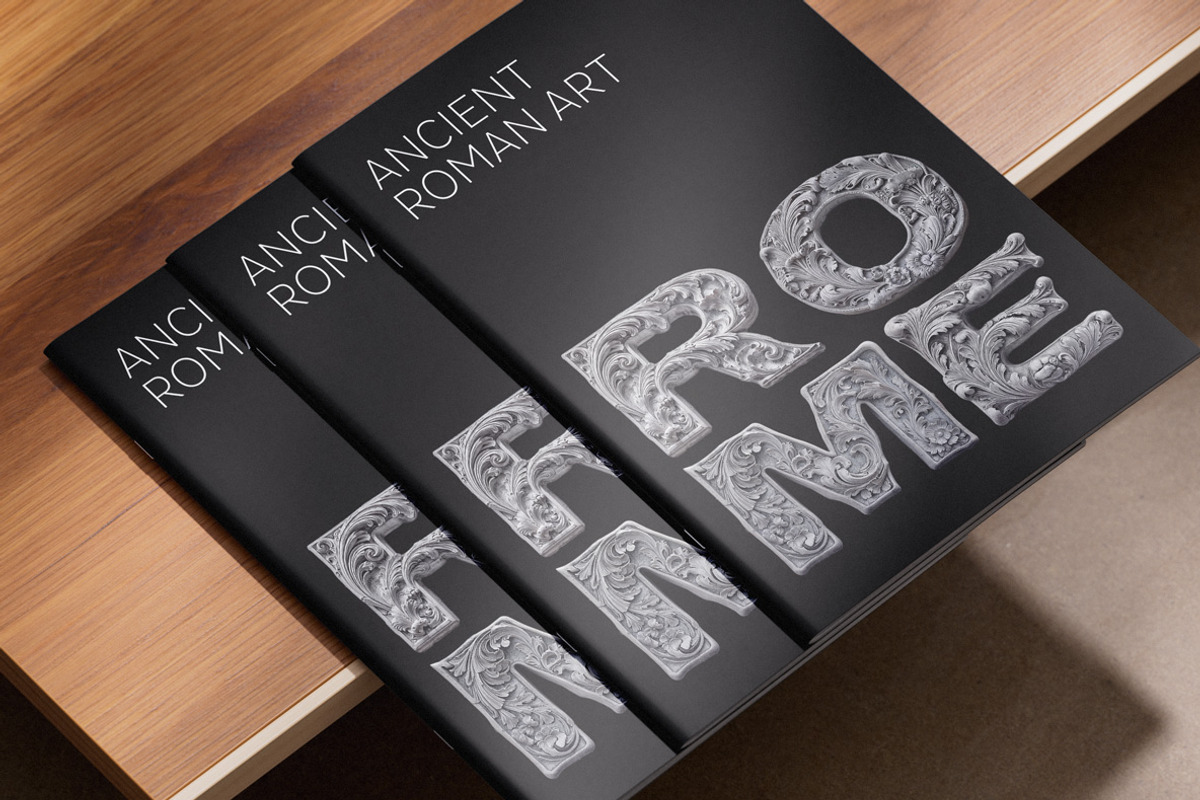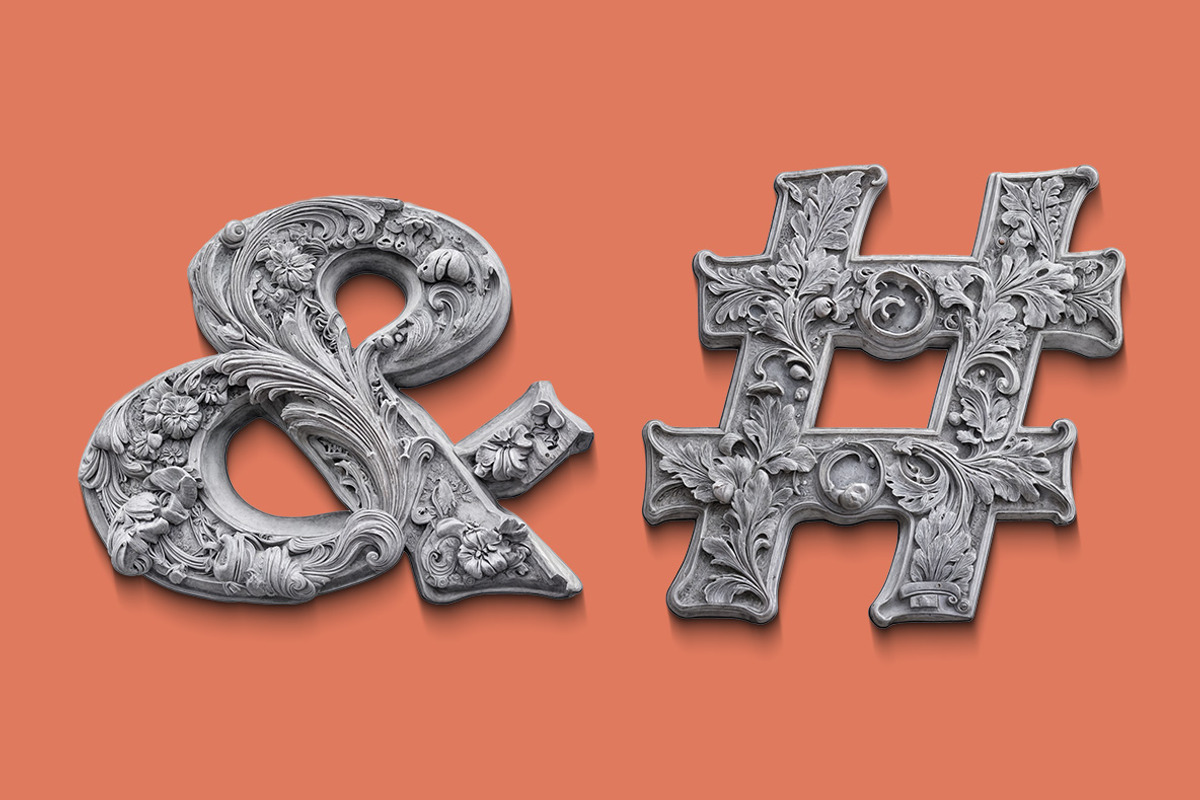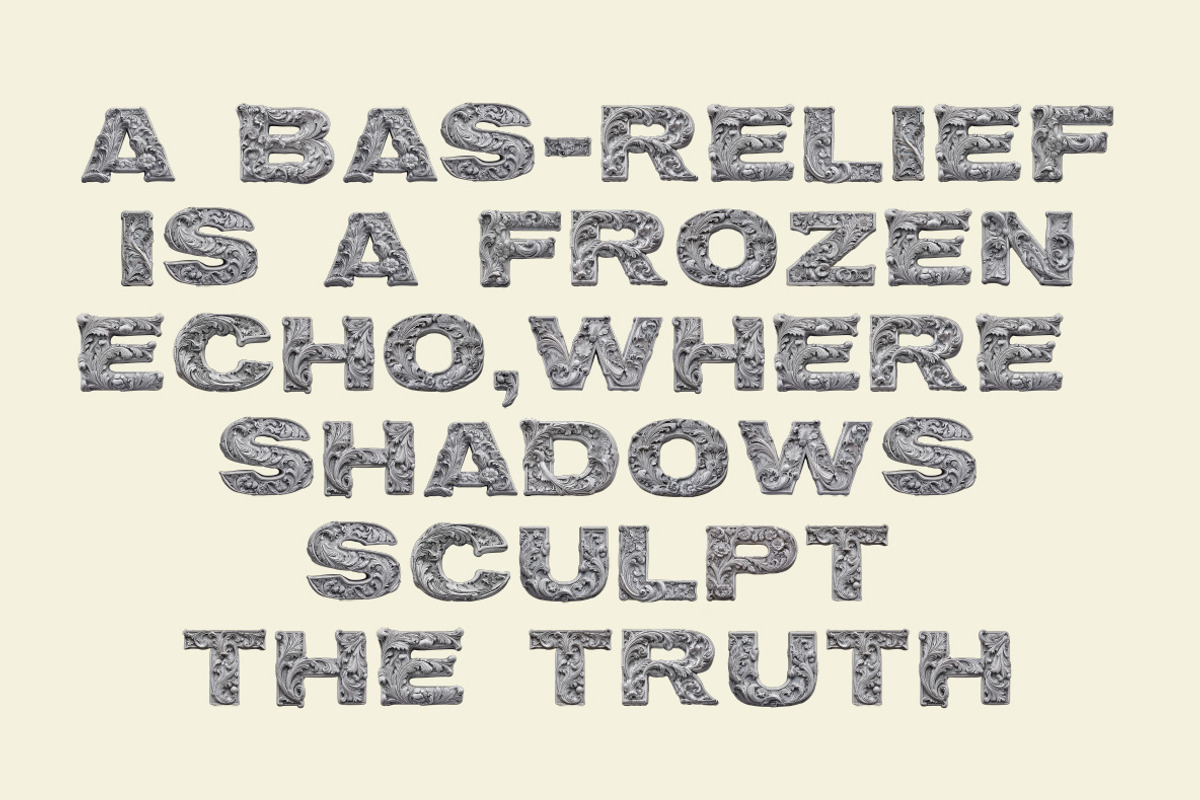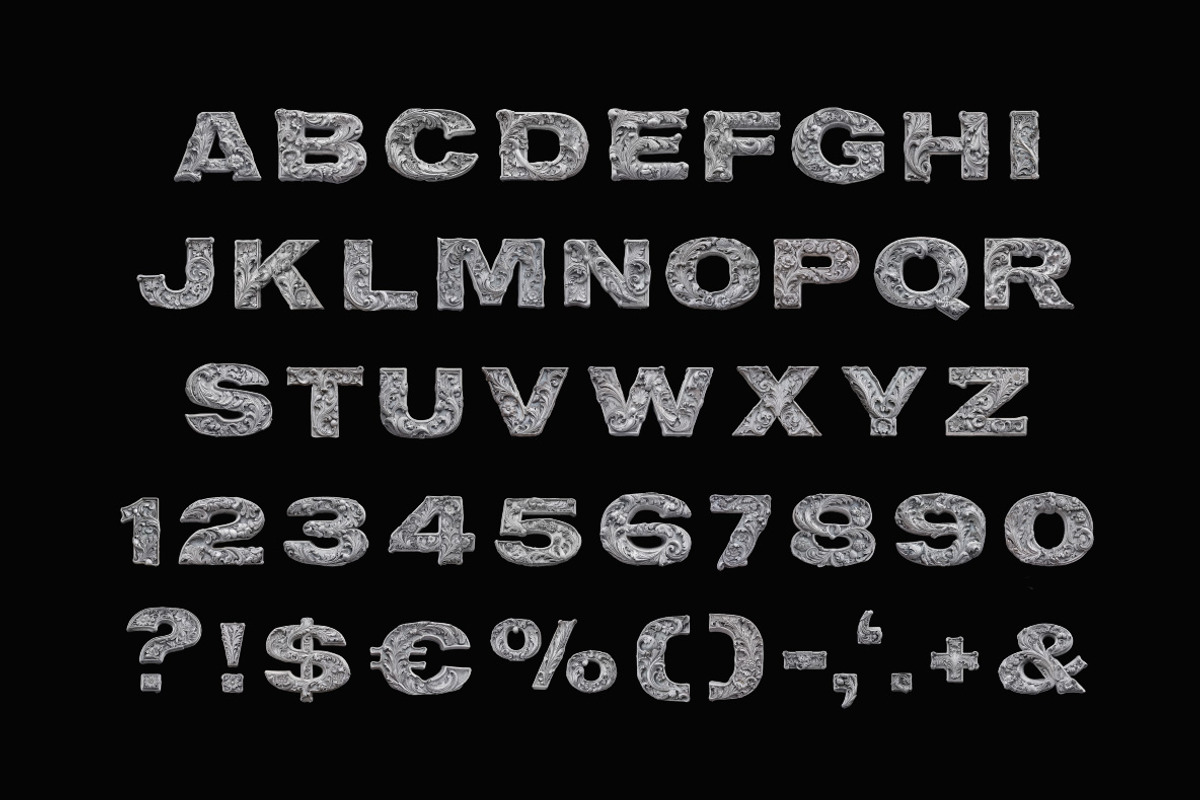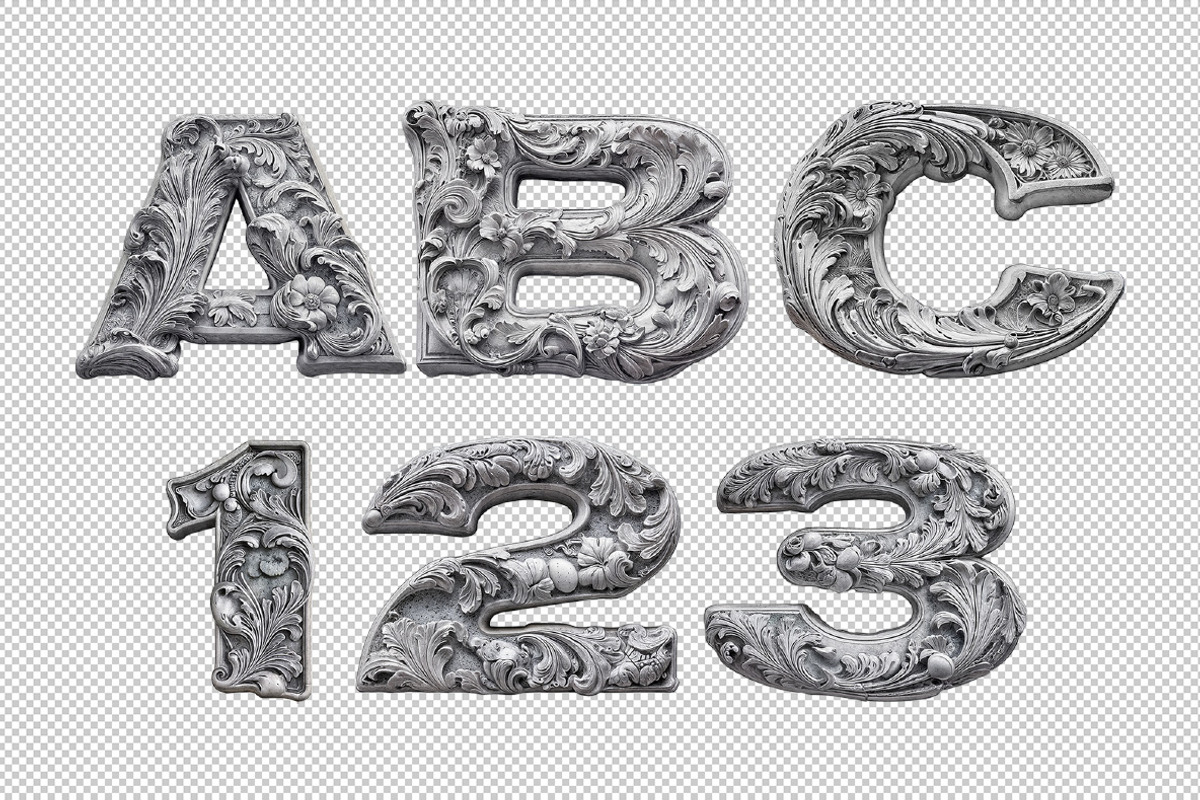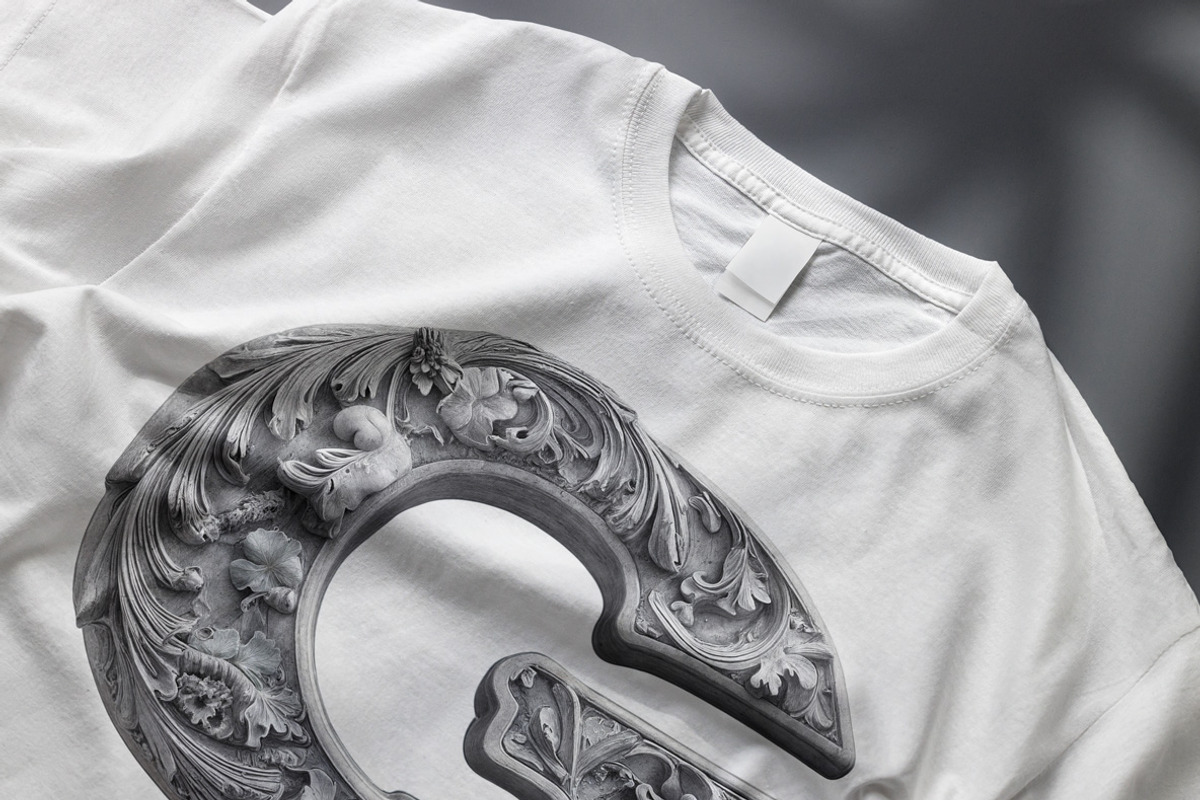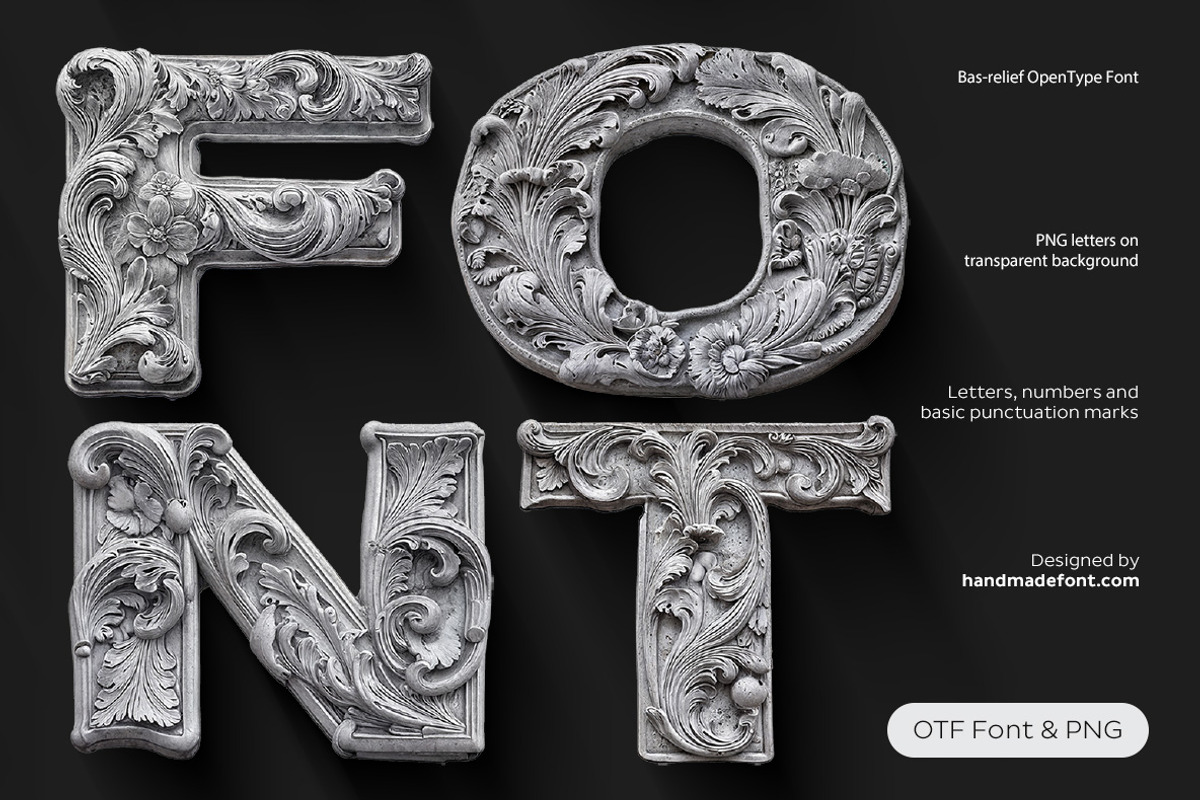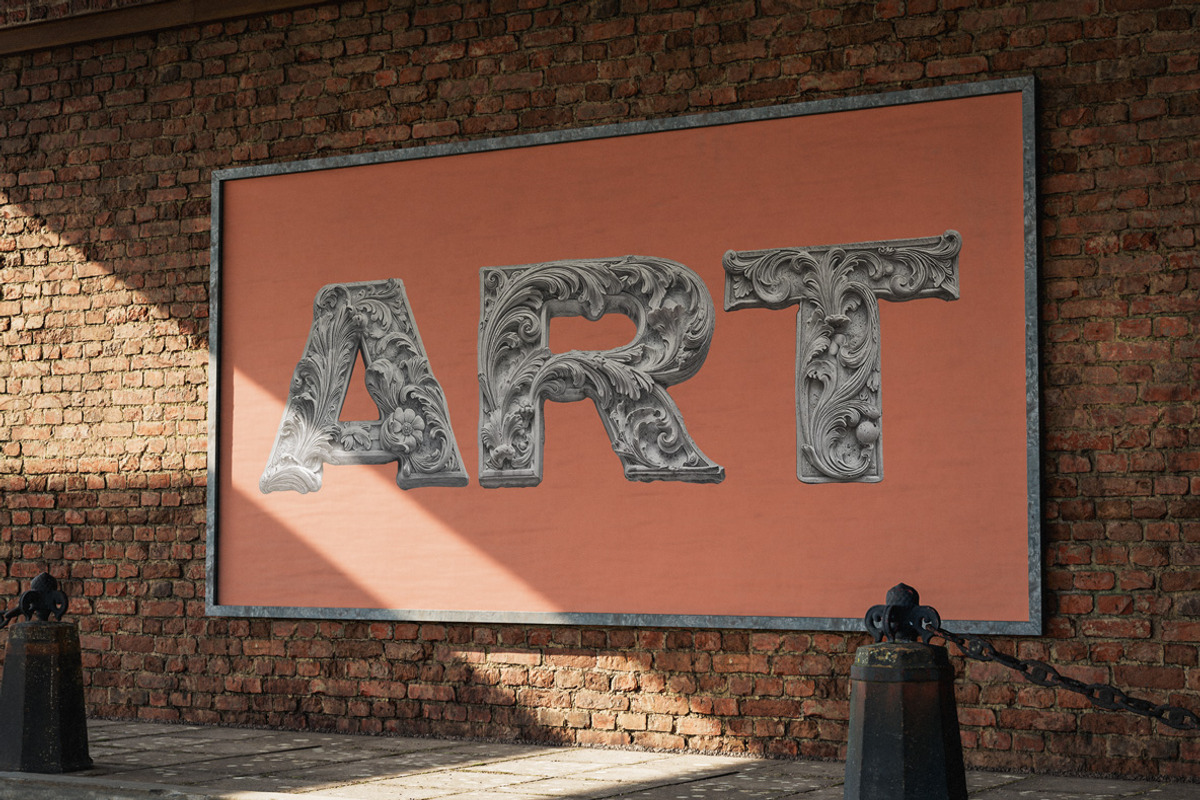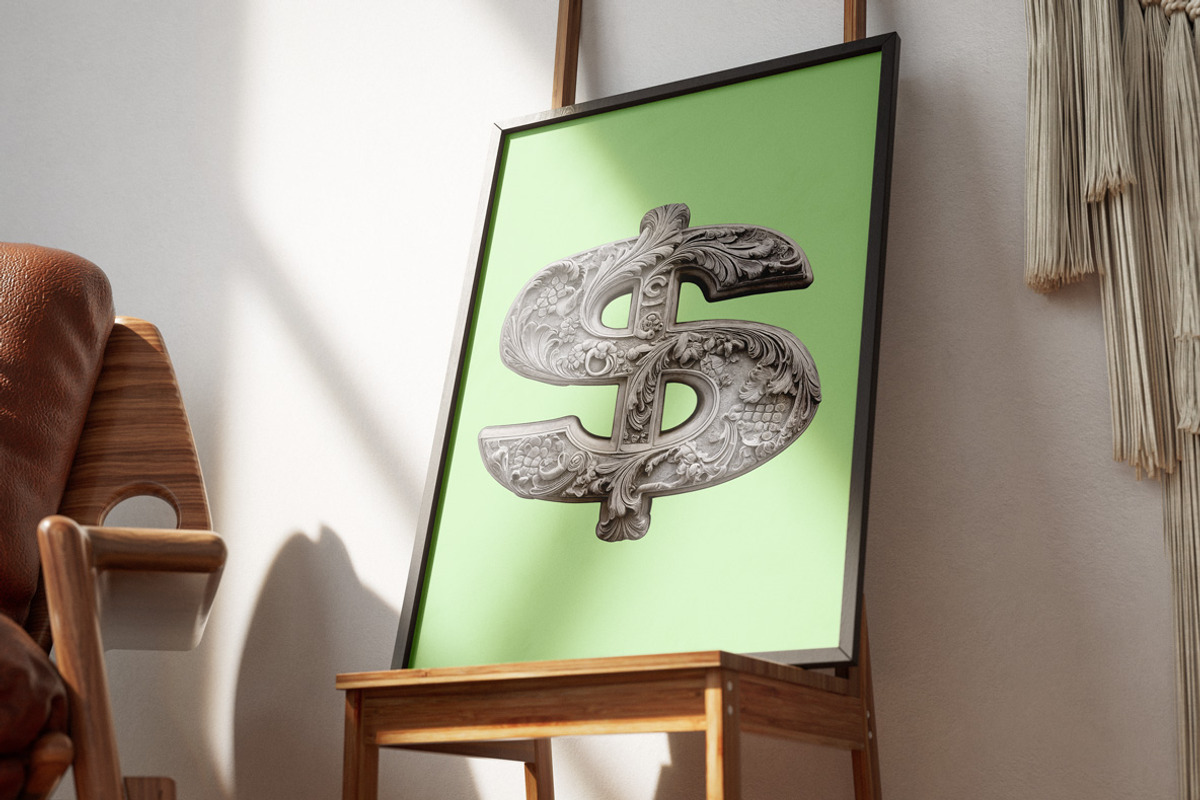
Bas-relief Font
Art, but make it extra. The Bas-relief Font isn’t just typography—it’s a sculpted masterpiece chiseled by the gods of design themselves. Each letter is an embossed, baroque-inspired marvel, dripping in ornate filigree and floral flourishes like a Renaissance palace trapped inside the alphabet. It doesn’t just sit on the page—it emerges, like a luxurious, classical engraving demanding to be admired. Think stone-carved elegance meets vintage opulence, where every swirl and curve whispers, "I belong in a museum." If fonts had royalty, this would be a crown jewel—because why settle for plain letters when you can have Bas-relief lettering royalty?
A high definition OpenType Font. Contains uppercase characters, numerals and basic punctuation. (Draw height roughly 800 pixels). All letters and glyphs that comprises this font you can see on the preview.